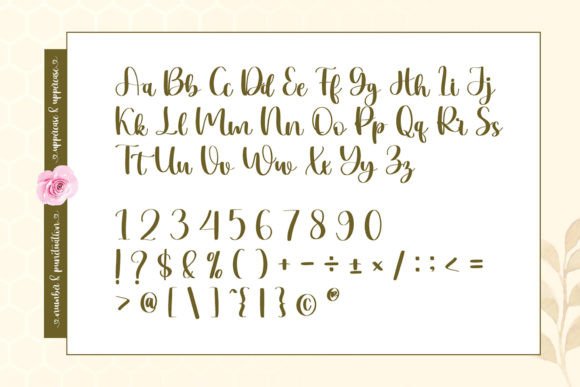
Hanale Font: A Sweet and Friendly Handwritten Font for Your Designs
Are you looking for a font that can add a personal touch to your designs? Look no further than Hanale Font, a sweet and friendly handwritten font that is perfect for a wide range of projects. With its natural and unique style, Hanale Font is incredibly versatile and can be used in a variety of designs, from wedding invitations and greeting cards to branding and advertising materials.
What Makes Hanale Font So Special?
Hanale Font is a one-of-a-kind handwritten font that is designed to make your designs stand out. Its natural and unique style gives it a personal touch that is hard to find in other fonts. The font is created with a high level of craftsmanship, with each letter carefully designed to ensure that it is legible and aesthetically pleasing.
One of the things that sets Hanale Font apart from other fonts is its friendly and approachable style. The font has a warm and inviting feel that makes it perfect for designs that require a personal touch. Whether you’re creating a wedding invitation or a branding campaign, Hanale Font is sure to make your designs feel more approachable and engaging.
The Benefits of Using Hanale Font
There are many benefits to using Hanale Font in your designs. Here are just a few:
- Unique and Memorable: Hanale Font is a one-of-a-kind font that will make your designs stand out. Its unique style ensures that your designs will be remembered long after they’ve been seen.
- Versatile: Hanale Font is incredibly versatile and can be used in a wide range of designs, from wedding invitations and greeting cards to branding and advertising materials.
- Easy to Read: Despite its unique style, Hanale Font is incredibly legible and easy to read. This makes it perfect for designs that require a lot of text, such as brochures and flyers.
- Personal Touch: Hanale Font adds a personal touch to your designs that is hard to find with other fonts. Its friendly and approachable style makes it perfect for designs that require a human touch.
How to Use Hanale Font in Your Designs
Using Hanale Font in your designs is easy. Here are a few tips to get you started:
- Pair it with Other Fonts: Hanale Font pairs well with other fonts, such as sans-serif fonts like Arial or Helvetica. Experiment with different font combinations to find the perfect look for your design.
- Use it for Headings and Titles: Hanale Font is perfect for headings and titles, where its unique style can really shine. Use it to add a personal touch to your designs and make them more engaging.
- Experiment with Colors: Hanale Font looks great in a variety of colors, from bright and bold to soft and pastel. Experiment with different colors to find the perfect look for your design.
Who Can Benefit from Using Hanale Font?
Hanale Font is perfect for a wide range of designers and businesses, including:
- Graphic Designers: Hanale Font is a great addition to any graphic designer’s toolkit. Its unique style and versatility make it perfect for a wide range of projects.
- Wedding Planners: Hanale Font is perfect for wedding planners and brides-to-be who want to add a personal touch to their wedding invitations and stationery.
- Small Business Owners: Hanale Font is a great choice for small business owners who want to add a personal touch to their branding and advertising materials.